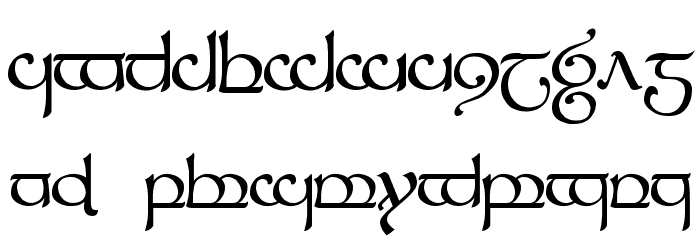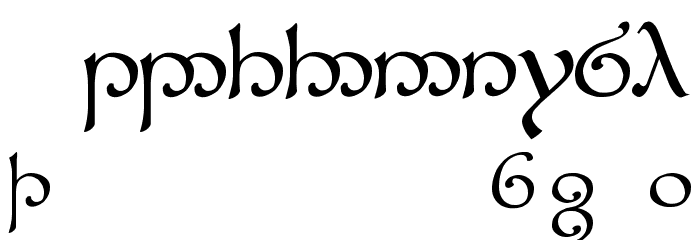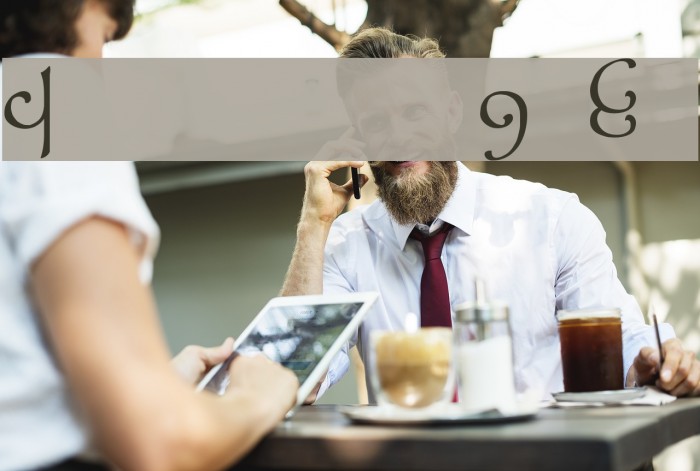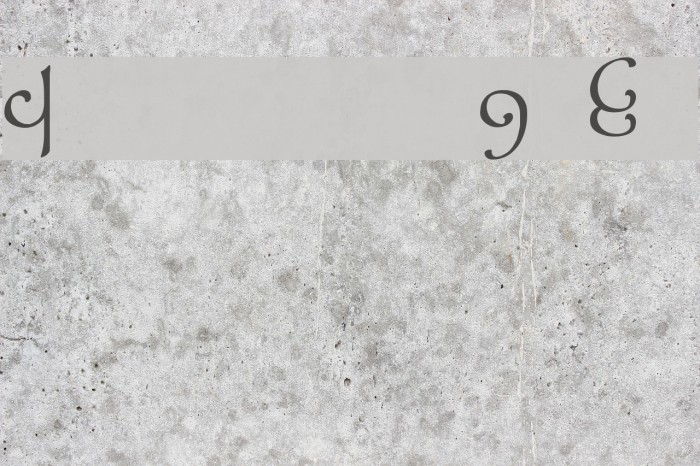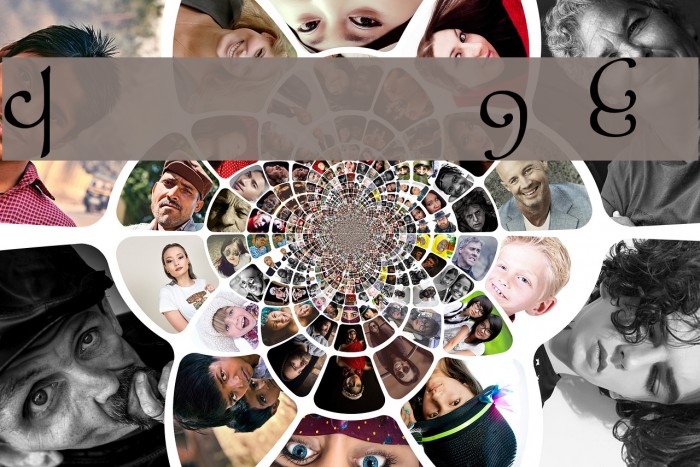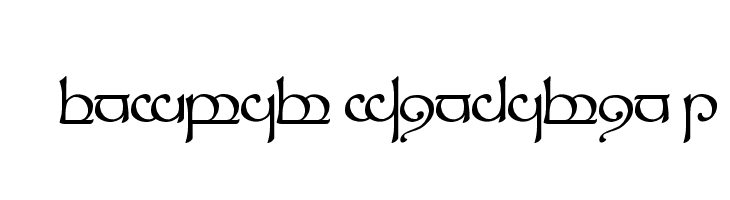
Tengwar Sindarin 1 Font
This font features an elegant and flowing script reminiscent of ancient and mystical languages. The characters are intricately designed with a calligraphic style, showcasing elongated strokes and delicate curves. Each letter is crafted with attention to detail, creating a sense of harmony and rhythm across the text. The font evokes a sense of fantasy and otherworldliness, making it ideal for projects that require a touch of magic or historical depth. Its unique style is both captivating and sophisticated, suitable for decorative purposes.
An elegant, flowing script with a mystical, calligraphic style.
- Proposed Projects: Ideal for fantasy book covers, movie posters, game designs, and themed invitations.
- Overall Style: Fantasy, Mystical, Elegant
- Use Case: Decorative text, Titles, Logos